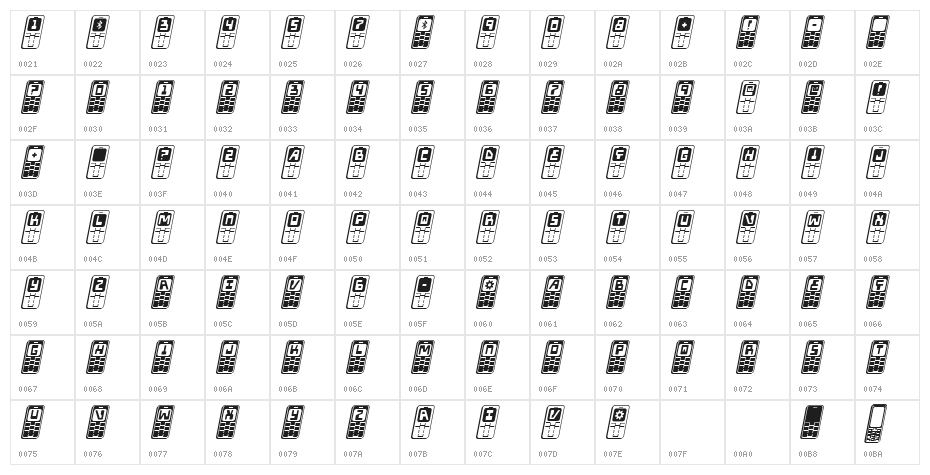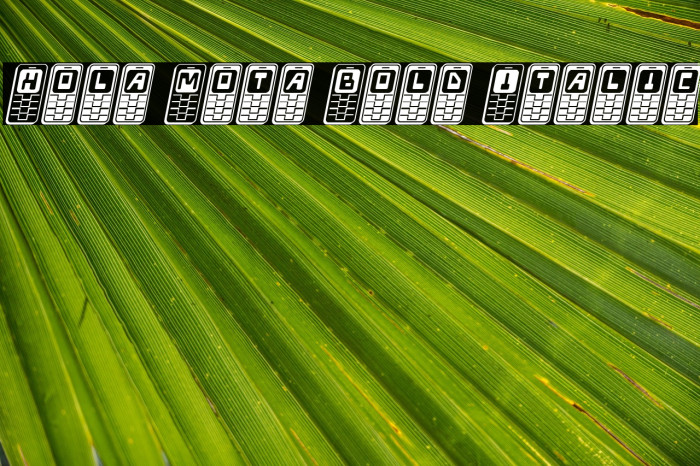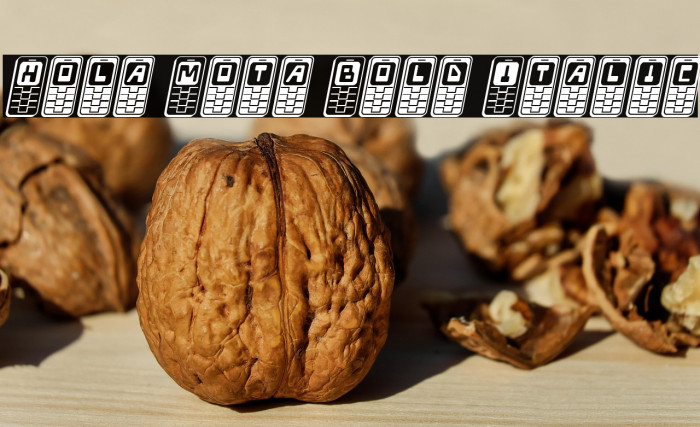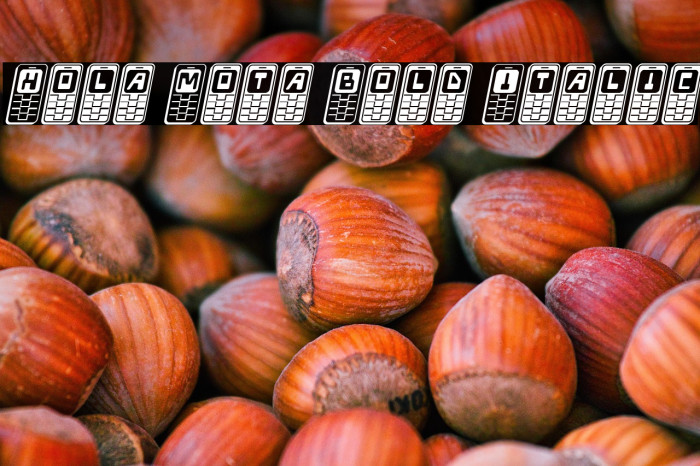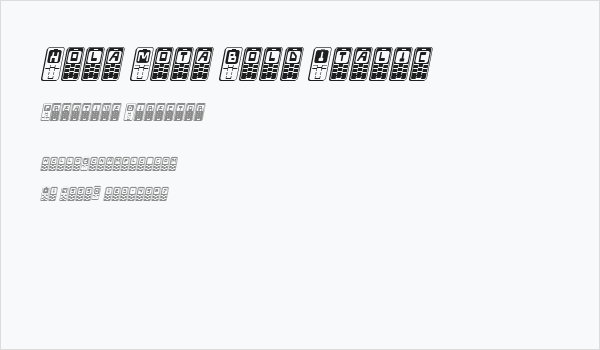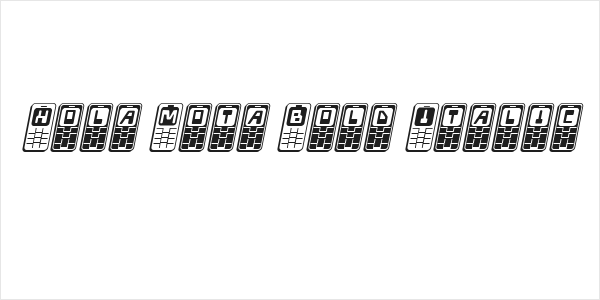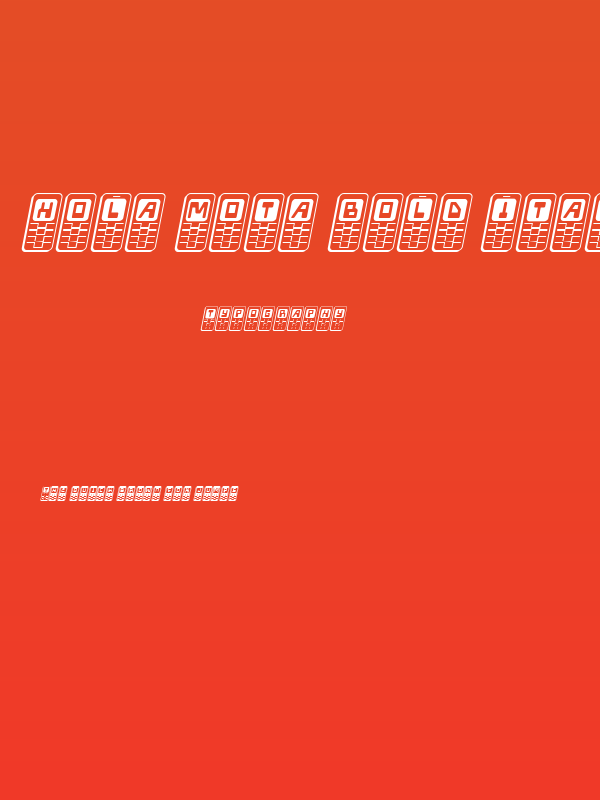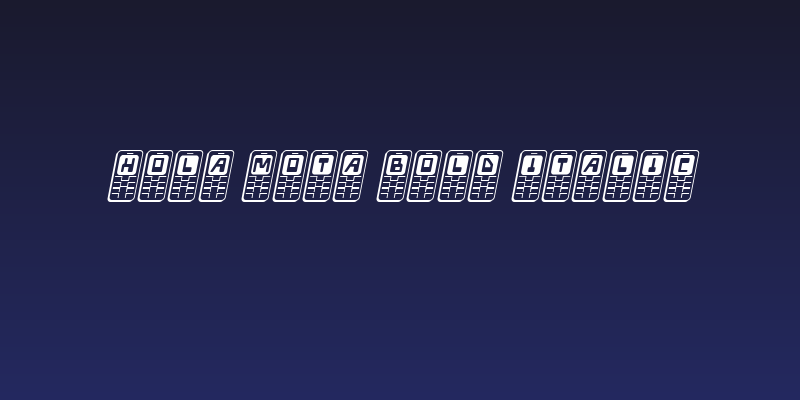
Hola Mota Bold Italic Font
Hola Mota Bold Italic Description
This font features a bold and italicized style with a unique, decorative appearance. Each character is enclosed within a rectangular shape, reminiscent of a digital or electronic display. The letters and numbers are designed with a slanted, italic angle, adding a dynamic and modern feel. The font's boldness ensures high visibility and impact, making it suitable for attention-grabbing designs. The characters are evenly spaced within their frames, maintaining a consistent and structured look. The overall style is futuristic and tech-inspired, ideal for projects that require a digital or modern aesthetic.
| Overall Style | Futuristic, Tech-inspired |
| Use Case | Headlines, Logos, Digital interfaces |
| Proposed Projects | Ideal for digital interfaces, tech-themed posters, video game graphics, and futuristic branding. |